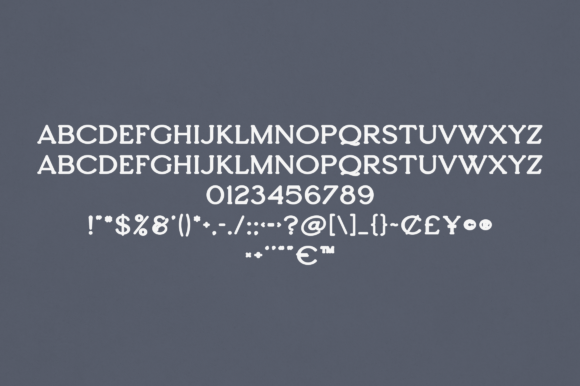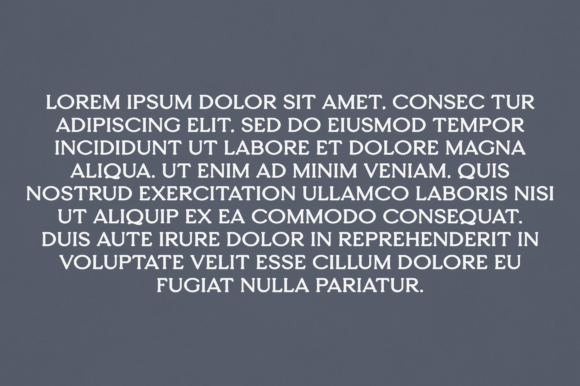
Avery Font: Elevate Your Typography with Elegance and Versatility
Are you tired of using the same old fonts for your design projects? Look no further than Avery Font, a stunning and versatile typeface that will take your typography to the next level. With its elegant and refined aesthetic, Avery is perfect for designers and crafters seeking to add a touch of sophistication to their work.
Avery Font is an exquisite addition to any design project. Its elegant and refined aesthetic makes it perfect for a wide range of applications, from branding and logo design to product packaging and magazine headers. Whether you’re a seasoned designer or a crafty DIY enthusiast, Avery Font is sure to enchant every logo, branding, headline, or plain text.
One of the standout features of Avery Font is its incredible versatility. This font can be used for a wide range of design projects, including:
- Branding projects: Create a lasting impression with Avery Font’s elegant and sophisticated aesthetic.
- Home-ware designs: Add a touch of refinement to your home decor designs with Avery’s beautiful typography.
- Product packaging: Make your products stand out on store shelves with Avery Font’s unique and eye-catching style.
- Magazine headers: Create stunning magazine headers that grab attention and leave a lasting impression.
- Text overlays: Use Avery Font as a stylish text overlay to add depth and interest to any background image.
What Makes Avery Font So Special?
So, what sets Avery Font apart from other typefaces? Here are just a few features that make it truly special:
- Elegant and refined aesthetic: Avery Font boasts a sophisticated and elegant design that’s perfect for high-end branding and design projects.
- Versatile and flexible: This font can be used for a wide range of design applications, from large-scale branding projects to small-scale craft projects.
- Unique and eye-catching: Avery Font’s distinctive style is sure to grab attention and leave a lasting impression.
Tips for Using Avery Font
To get the most out of Avery Font, here are a few tips to keep in mind:
- Experiment with different sizes and colors: Avery Font looks stunning in a range of sizes and colors, so don’t be afraid to experiment and find the perfect combination for your design.
- Pair with complementary fonts: For added visual interest, try pairing Avery Font with complementary fonts to create a unique and eye-catching typography combination.
- Use for headlines and titles: Avery Font is perfect for headlines and titles, where its elegant and refined aesthetic can really shine.
In conclusion, Avery Font is a truly exceptional typeface that’s perfect for designers and crafters seeking to elevate their typography. With its elegant and refined aesthetic, versatility, and unique style, Avery Font is sure to enchant every logo, branding, headline, or plain text. Whether you’re working on a large-scale branding project or a small-scale craft project, Avery Font is the perfect choice.